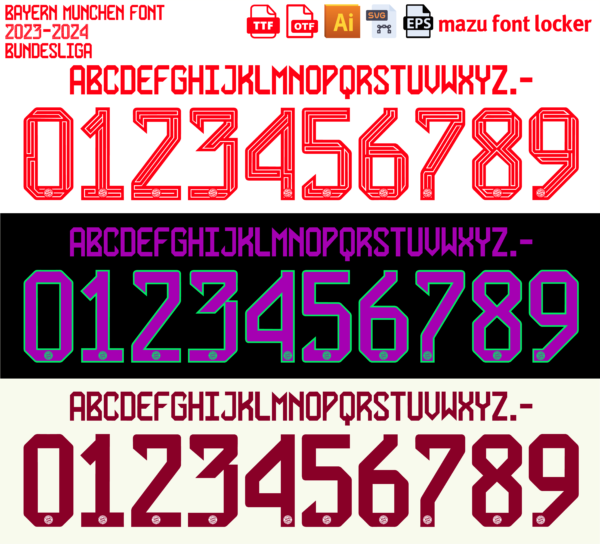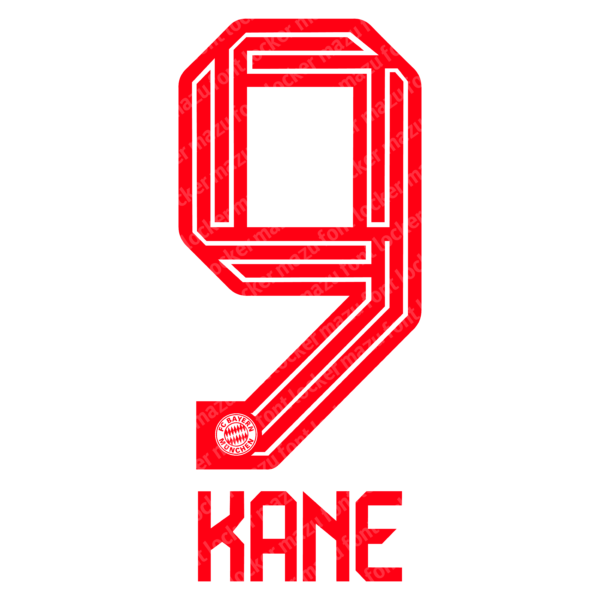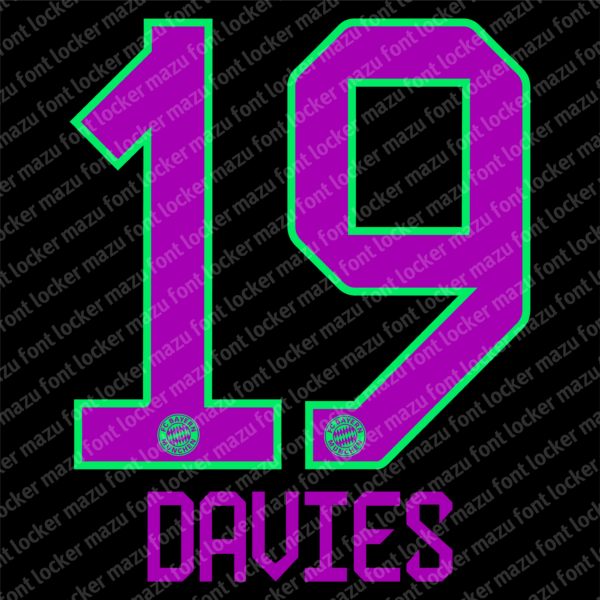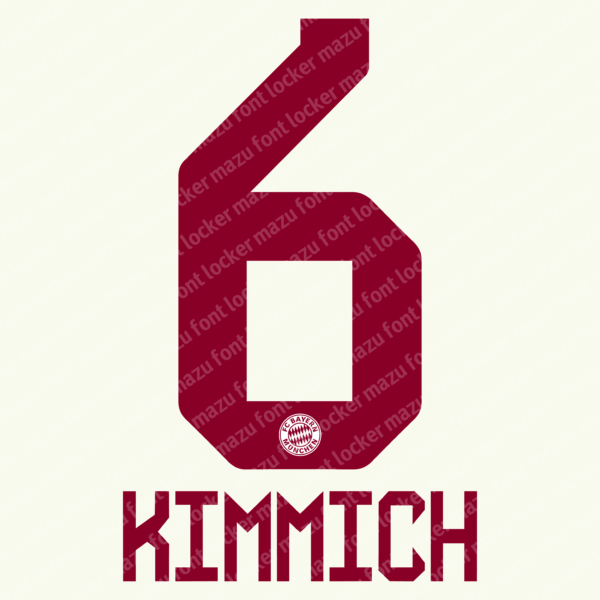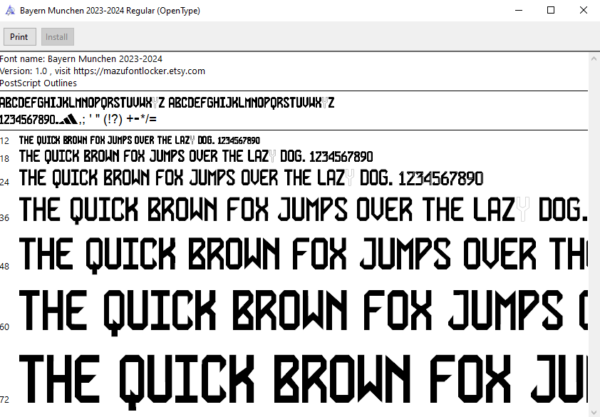
Bayern Munich 2023-2024 Font Vector – Authentic Die Roten Style
Download Bayern Munich 2023-2024 Font, the ultimate bold and dynamic typeface inspired by the legendary German champions. This premium font perfectly captures the strength, elegance, and winning spirit of Bayern Munich during the 2023-2024 season.
Bayern Munich 2023-2024 Font delivers a strong, modern, and professional look that stands out in every design. Ideal for creating custom jerseys, player posters, fan banners, social media graphics, name and number designs, supporter merchandise, and many more football-themed projects. Its sharp lines and powerful presence give your creations an authentic and high-end feel that true fans will instantly recognize.
Bayern Munich 2023-2024 Font Vector
🔥 Bayern Munich 2023-2024 Font Features
- Authentic 2023-2024 Bayern Munich jersey lettering style
The authentic lettering style helps recreate the classic look of the Bayern Munich 2023-2024 kit with professional accuracy.
Unlike generic jersey fonts, this set is designed with a strong focus on authenticity and accuracy. Every detail is based on the original match lettering style used during the 2023-2024, helping designers and collectors create realistic football shirt designs.
This Bayern Munich 2023-2024 font vector set is designed for authentic football jersey customization and works perfectly for retro football projects, collector designs, and professional sportswear artwork.